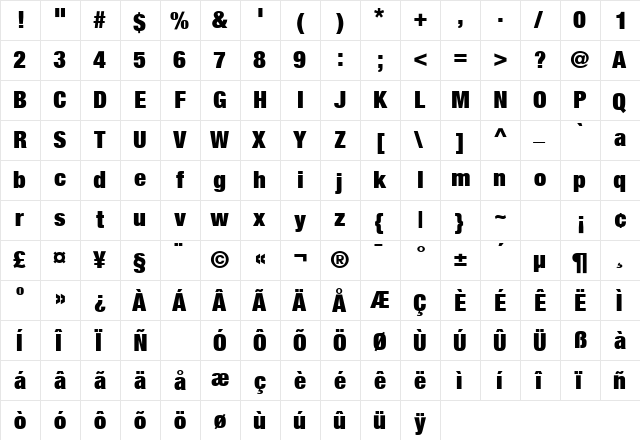
Context Reprise UltraCond SSi Normal
Design Context for Context Reprise UltraCond SSi Typeface
Context Reprise UltraCond SSi offers clean, dependable letterforms without strong stylistic allegiance, making it a practical choice for designers who need flexibility. Its narrow stance lets it pack a punch even in space-constrained designs.
Pro Tip: Pair Context Reprise UltraCond SSi with a font of contrasting weight or personality to build a more expressive typographic hierarchy.